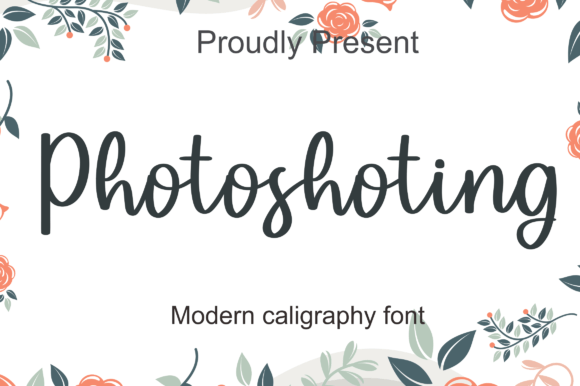
Dive into the enchanting world of Photoshoting and unveil the captivating allure of its handwritten strokes. This modern script font, meticulously crafted by Erlina Graphic, is a masterpiece that will ignite the fire within your creative spirit.
Photoshoting transcends the ordinary, beckoning you to embark on an extraordinary journey of self-expression. Its plump, bubbly letters dance across the page, exuding a playful charm that will leave an unforgettable imprint on your designs.
Step into the realm of possibility with Photoshoting. Whether you're crafting elegant wedding invitations or captivating magazine covers, this font will effortlessly elevate your creations to new heights. Its versatility knows no bounds, lending itself beautifully to storybooks, invitations, social media graphics, and more.
Photoshoting is the perfect choice for businesses seeking to make a lasting impression. Its distinctiveness will set your brand apart, captivating your audience with its whimsical, eye-catching appeal. Use it on business cards, letterheads, and brochures to create a memorable brand experience that will leave a lasting impact.
Indulge in the sheer joy of creating with Photoshoting. Its charming character will evoke emotions and forge connections, making your designs truly resonate with your audience. Embark on an artistic adventure with this extraordinary font and witness the transformation of your creative visions into breathtaking realities.